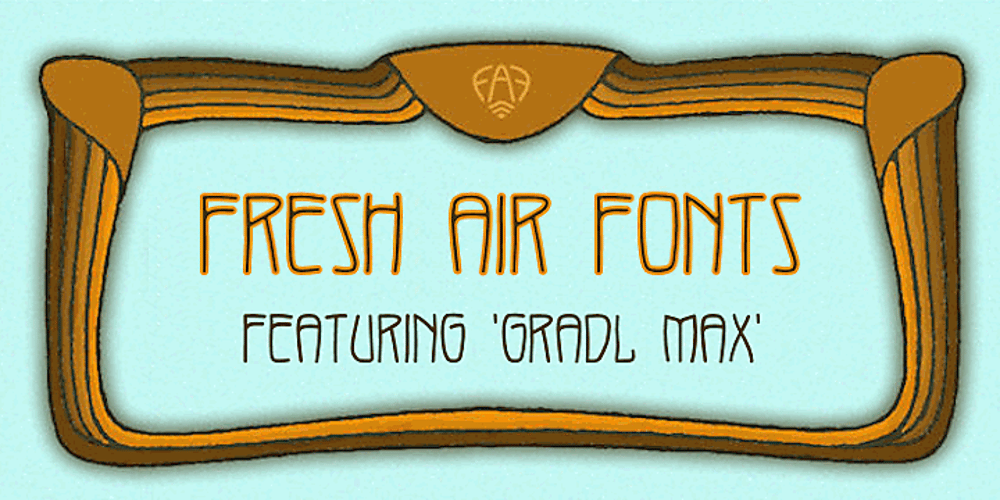
Gradl Max Font Family was designed by M.J. Gradl, Mike Freiman and published by Fresh Air Fonts. Gradl Max contains 1 styles and family package options. Max J. Gradl was a German jewelry designer. A Web search today turns up several examples of his work from the turn of the 20th century. He seemed to favor green stones in silver metalwork. Gradl also did advertising work and co-authored a book on architectural design. Most important for our purposes, though, are the incredible hand lettered alphabets and monograms the man left behind. I’ve digitized one of those delightful alphabets and tried to keep it true to the original. Beyond the base character set of letters, numerals and basic punctuation, I had to extrapolate forms that, I hope, hold true to Gradl’s design. Enjoy!